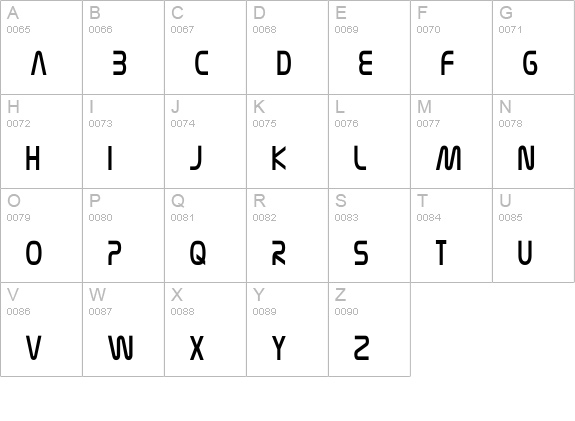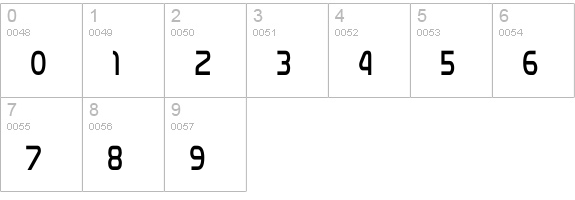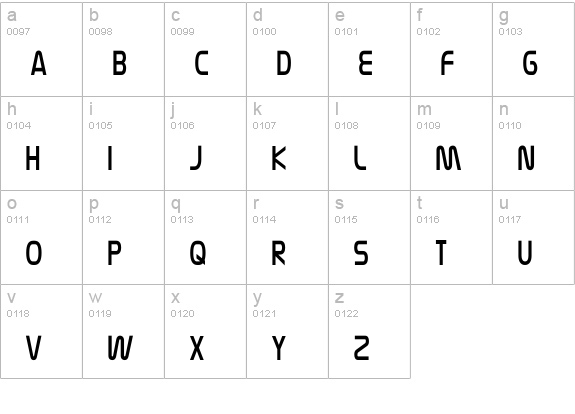
Nasalization Condensed Light Font Details
Nasalization Condensed Light is a refined, elegant, condensed-width variant in the Nasalization typeface family \xE2\x80\x94 well suited to elegant body text, refined sub-headings, and luxury branding.
Nasalization Condensed Light font is a modern and sleek typeface that exudes elegance and sophistication. Its condensed form makes it perfect for headers, titles, and branding projects where space is limited but impact is essential. The clean lines and rounded edges of this font give it a friendly and approachable feel, making it versatile for a wide range of design applications. Best of all, Nasalization Condensed Light font is available for free download at FontsMarket.com. This means you can easily access this stylish font and use it in your projects without any cost. Whether you're designing a website, creating marketing materials, or working on a personal project, Nasalization Condensed Light font is sure to elevate your design with its modern aesthetic and professional appeal. Download it today and take your designs to the next level!